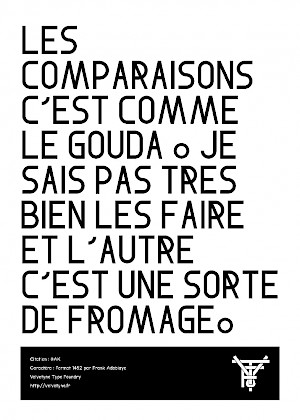
Format 1452
Designed by
Frank Adebiaye, with the contribution of Anton Moglia
Format 1452 is a Din-like typeface built with modules, without any optical corrections.